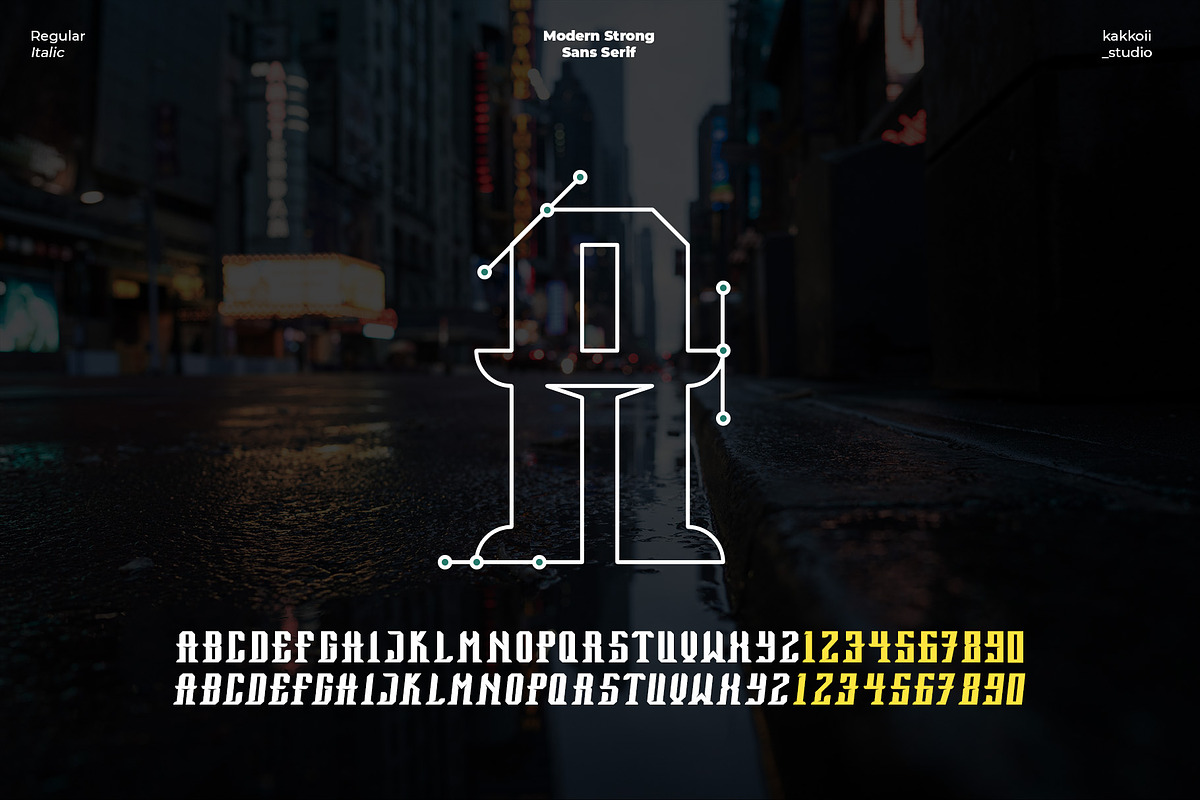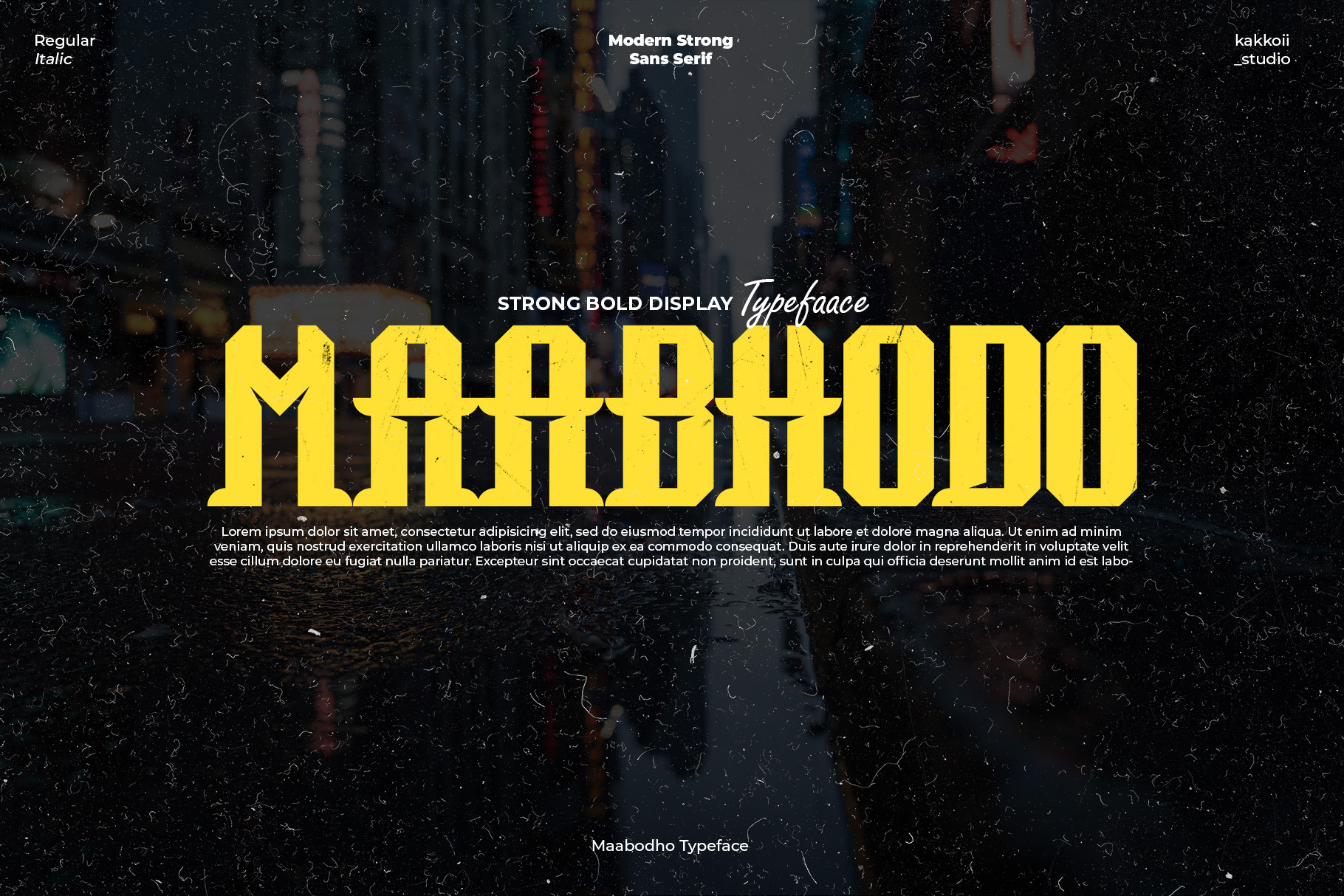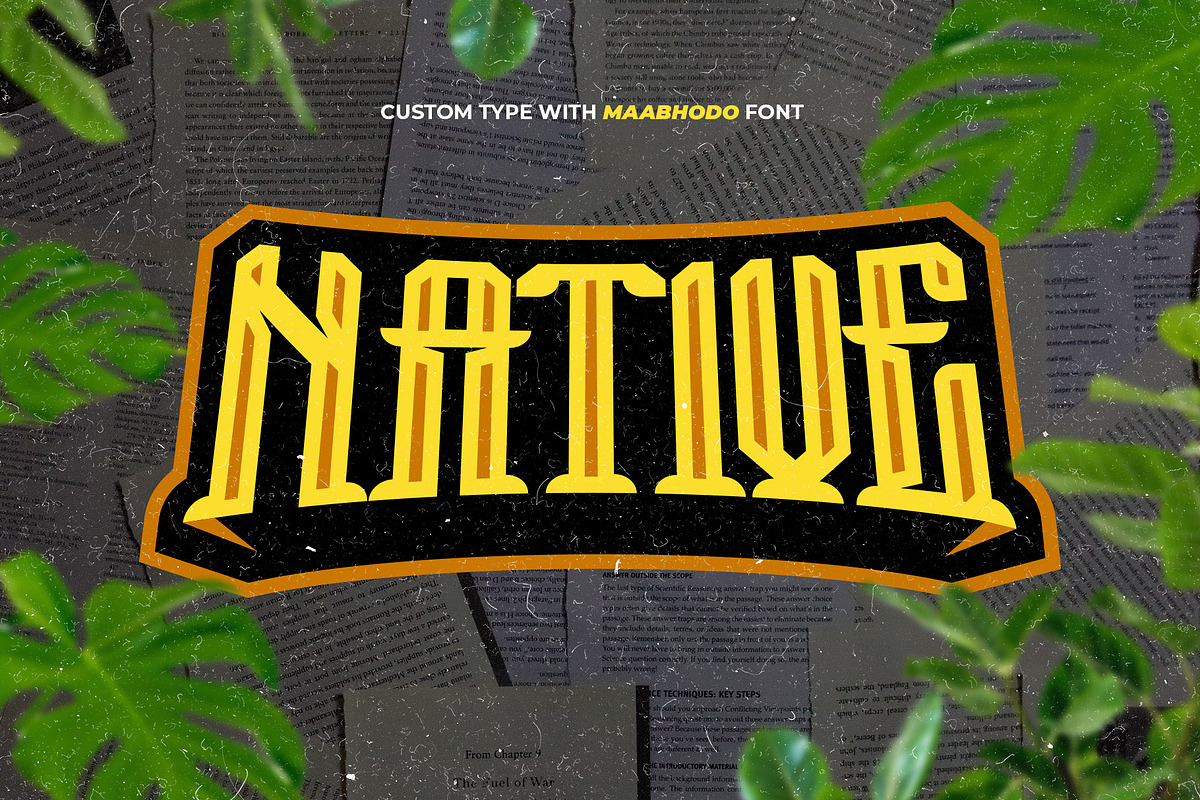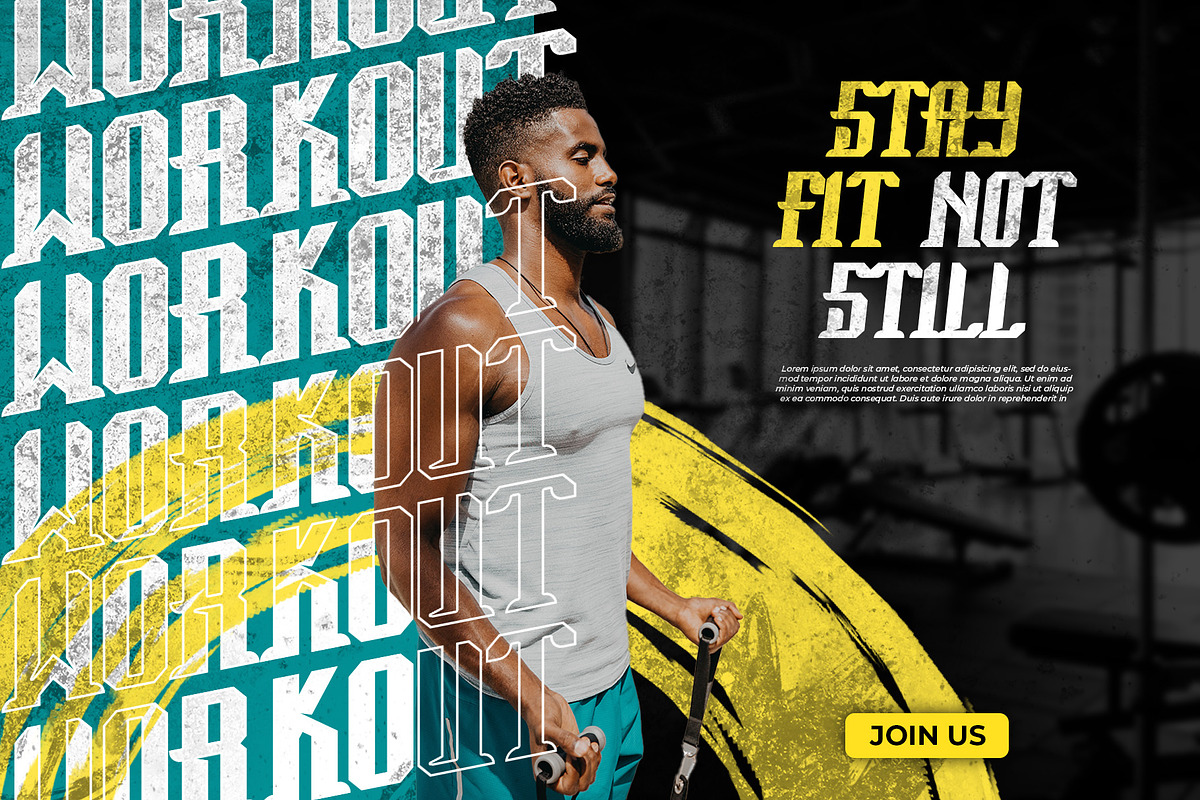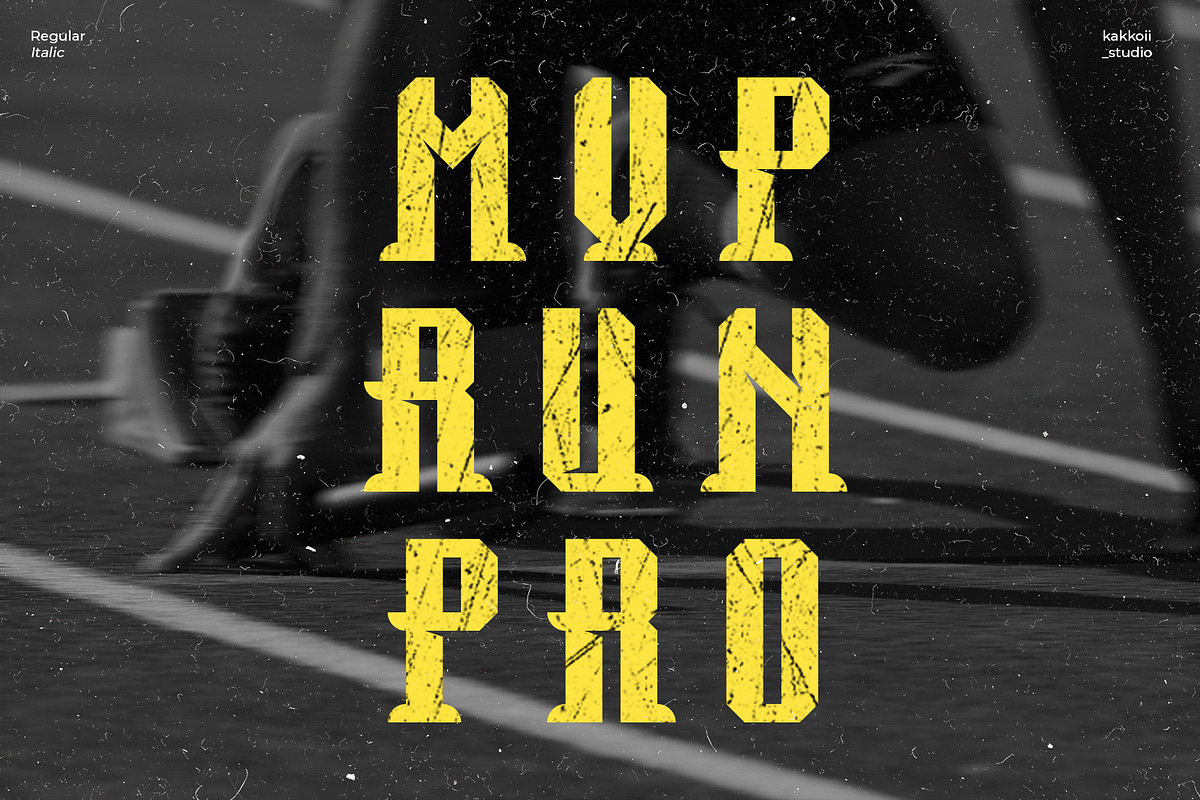
Maabhodo a Strong Bold Display Font
Maabhodo is a strong bold inspired display typeface. It's fun and groovy with a bold personality. Perfect for masthead, logo, or anything your creativity takes you.
- maabhodo regular
- maabhodo italic